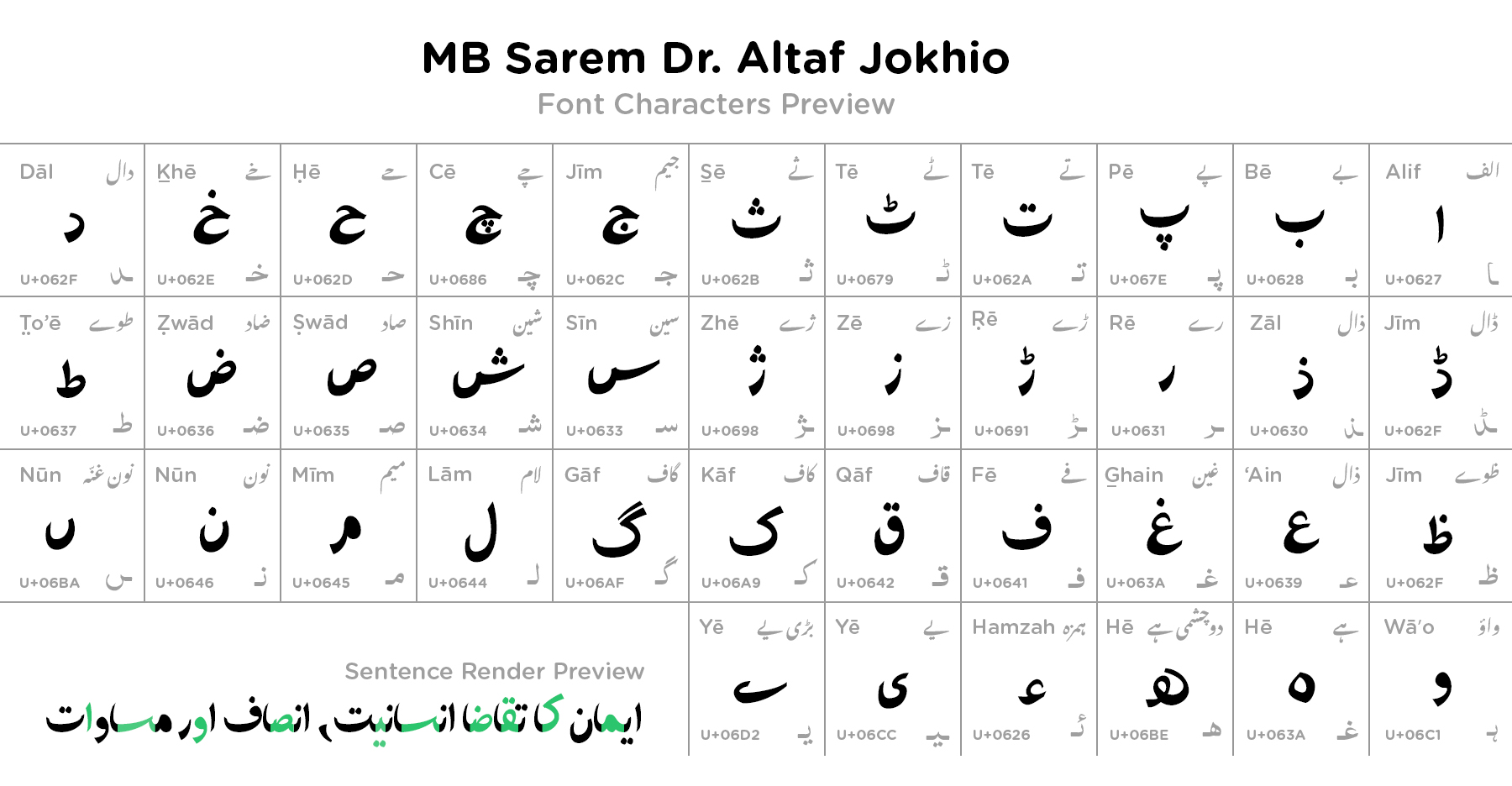
MB Sarem Dr. Altaf Jokhio is a TrueType Sindhi font designed by a reputable Sindhi font designer, Sanaullah Mangnejo Sarem. This font is the trademark of Ayesha Graphics. It is a bold decorative font with an extensive word count and a glyph count of 616. The font is a stylized version of the Naskh script, with bold, thick letters and generous spacing for readability. It features decorative serifs, varying letter shapes, and different letter connections for dynamic contrast. Connecting strokes extend into decorative flourishes, giving the text an artistic and opulent feel. The font mimics hand-written calligraphy with variations in width and stroke thickness, creating a unique and visually appealing design. MB Sarem Dr. Altaf Jokhio contains a large character set to support various local languages, including Urdu, Sindhi, Balochi, Saraiki, Pashto, and more, increasing its diversity. It can be used to make rich culture-soaked posters and banners or in advertising campaigns targeting local audiences.